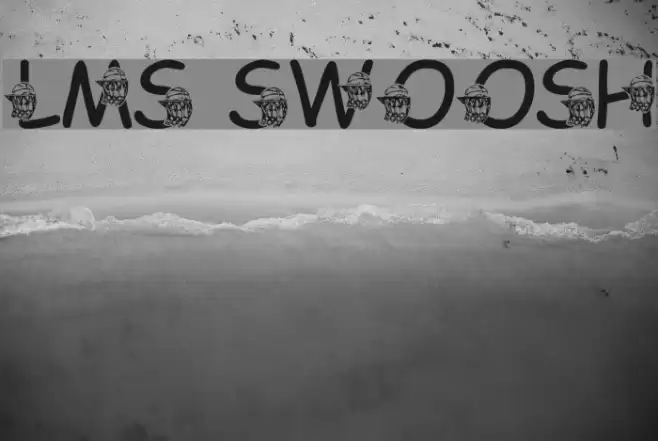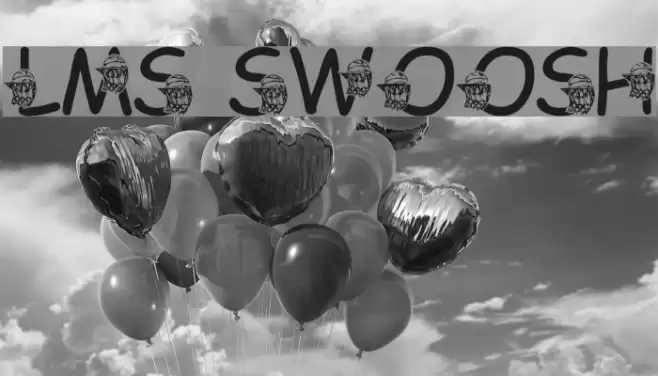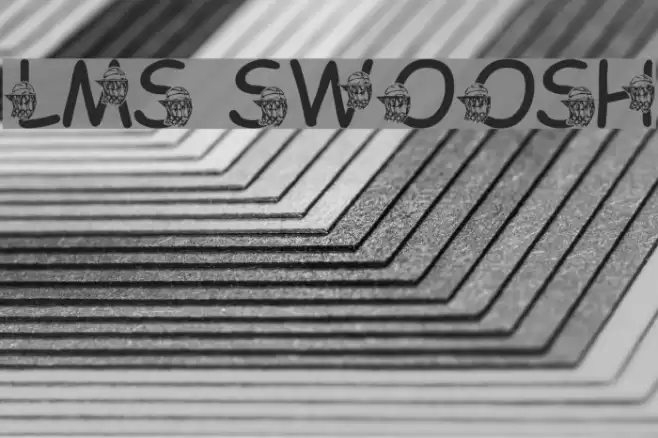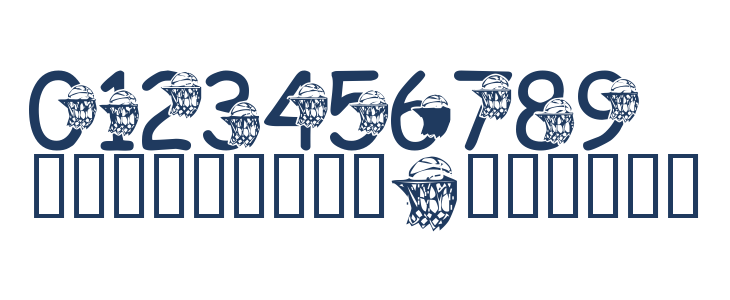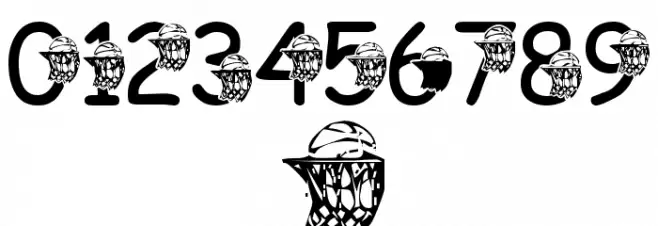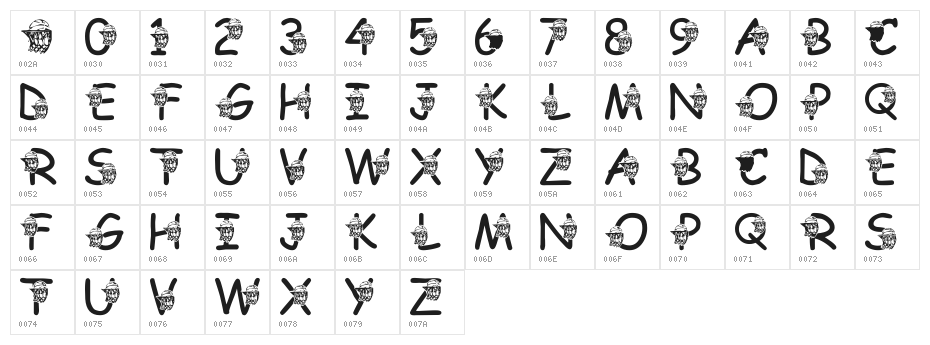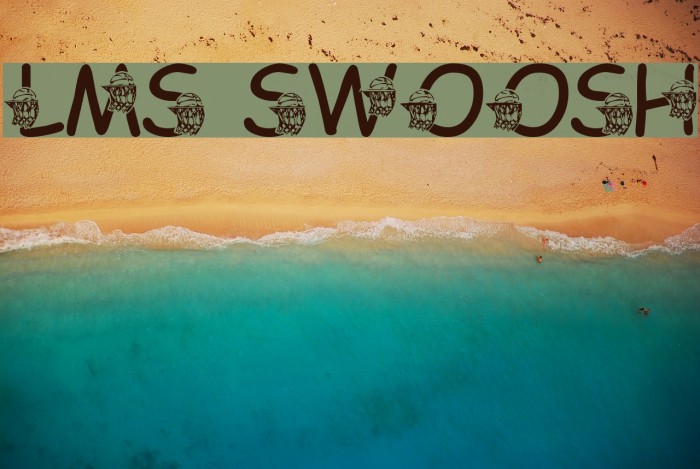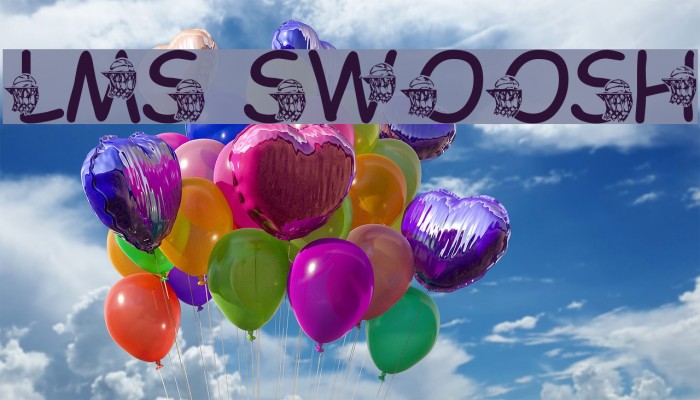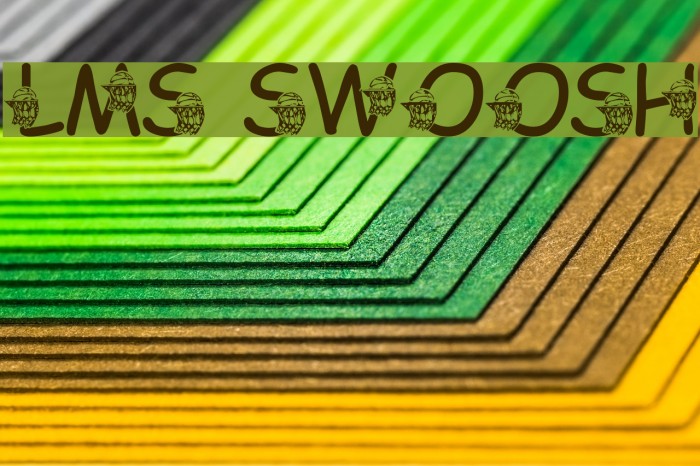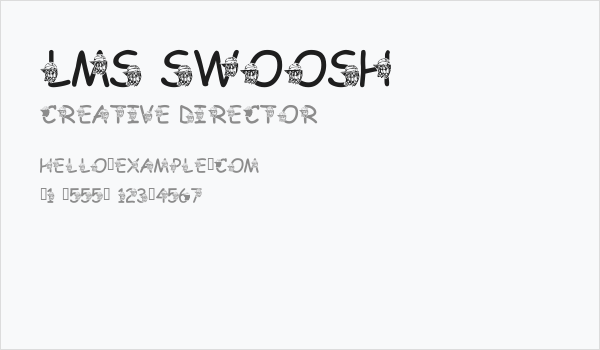
LMS Swoosh Font
LMS Swoosh Description
This font features a unique and playful design, incorporating basketball-themed elements into each character. The letters are bold and rounded, with a dynamic swoosh effect that adds movement and energy. Each character is adorned with a basketball net motif, making it ideal for sports-related projects. The font maintains a consistent style across uppercase, lowercase, and numeric characters, ensuring a cohesive look. Its decorative nature makes it stand out, perfect for eye-catching headlines or themed designs.
A bold, basketball-themed decorative font with dynamic swoosh elements from Uncategorized fonts.
- Proposed Projects: Ideal for sports branding, basketball event posters, themed merchandise, and playful graphic designs.